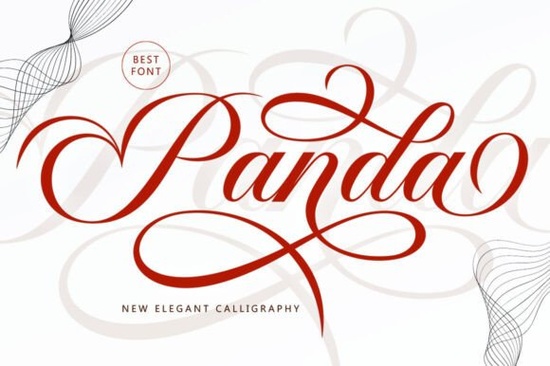
When building a brand identity or preparing custom print materials, the typography you choose sets the entire mood. Panda Font is a well-structured script typeface that bridges traditional calligraphy with contemporary design needs. It offers smooth character variations and carefully crafted ligatures that make long words look cohesive rather than cramped. If you have spent time searching for a reliable script for wedding stationery, boutique packaging, or lifestyle branding, this typeface gives you a clean starting point.
What makes this script typeface stand out for print and digital work?
The main appeal lies in its balance. It carries the formal structure of classic copperplate lettering while removing some of the stiff ornamentation that older styles sometimes rely on. The letter connections feel luxurious without sacrificing legibility. The baseline remains steady, which helps when you typeset short paragraphs or place text over busy photography. For print-on-demand sellers and small business owners, readability often matters more than pure decoration. This typeface keeps swashes controlled, so it works well on product tags, clothing labels, and minimalist packaging. You can also use it for magazine headers or book titles without worrying that readers will struggle to decipher the text. See how other creators apply this style to keep their layouts consistent across multiple projects.
How can small businesses and creators use it in their projects?
Because the letterforms lean toward an elegant, feminine aesthetic, they fit naturally into several creative industries. Here are the most reliable applications:
- Invitations and greeting cards: The flowing joins work beautifully for formal event details and handwritten-style signatures.
- Beauty and fashion branding: Makeup labels and apparel hangtags rely on soft typography to convey quality.
- Restaurant and café menus: Pair the script with a clean sans serif to guide diners through daily specials without clutter.
- Editorial design: Novel covers, magazine headers, and book jackets gain a polished look when used for titles.
- Custom labels and packaging: The consistent stroke width prints cleanly on matte stickers, kraft boxes, and glass surfaces.
If you usually work with more playful or rounded lettering for casual products, keep this script reserved for premium collections or formal announcements. Explore alternative styles when your next campaign targets a younger audience.
Does it pair well with other typefaces?
Script designs work best when they are not competing for attention. Match this elegant script with a straightforward sans serif or a light geometric font for body copy. Use the script for short headings or accent words while letting a simpler typeface handle longer paragraphs. Always check contrast between sizes and weights before finalizing a file. When testing combinations, view the layout on a phone to ensure the spacing feels natural. For additional inspiration, you can review playful display options or structured alternatives that complement hand-drawn styles.